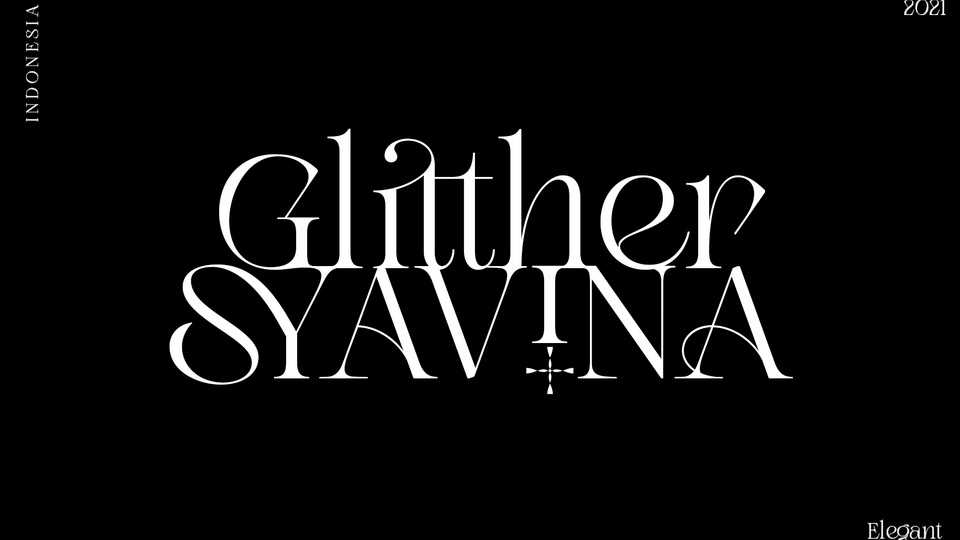
Download Glitther Syavina font, a fancy modern serif typeface with beautiful ligatures. Glitther Syavina is a very versatile font that works great in large and small sizes.
Designer: Dean Nugraha